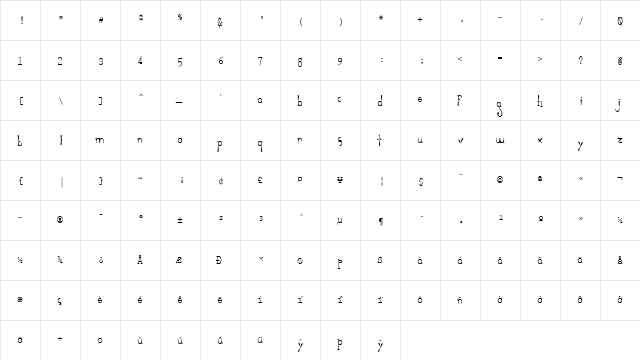
NoteAshunSonofGriff Medium
Design Context for NoteAshunSonofGriff Typeface
NoteAshunSonofGriff takes a measured approach to typography — its balanced proportions and neutral character make it a reliable workhorse for both digital and print work.